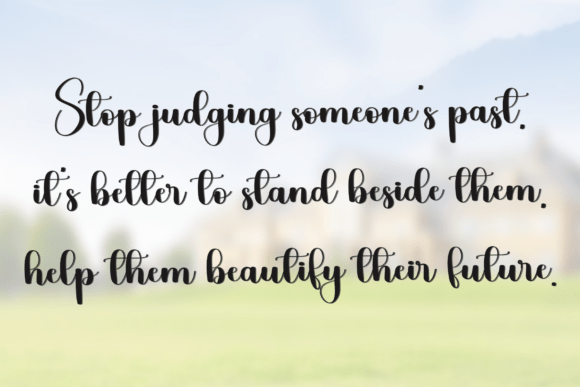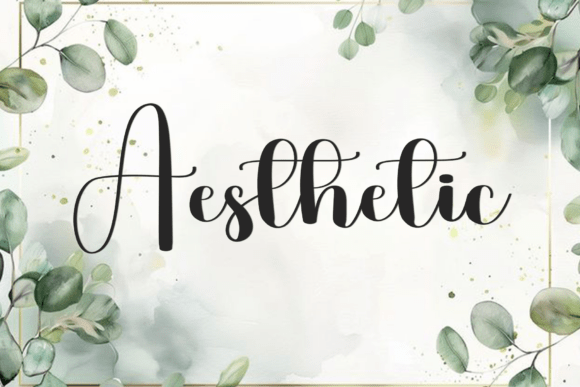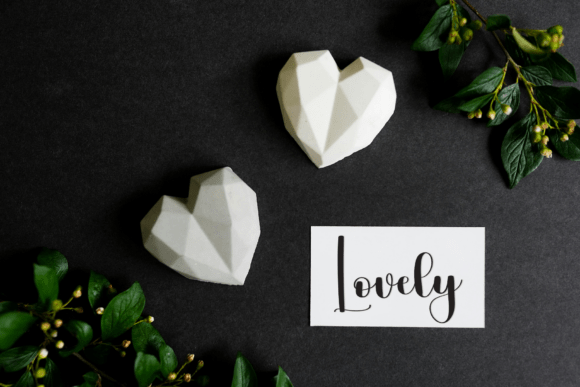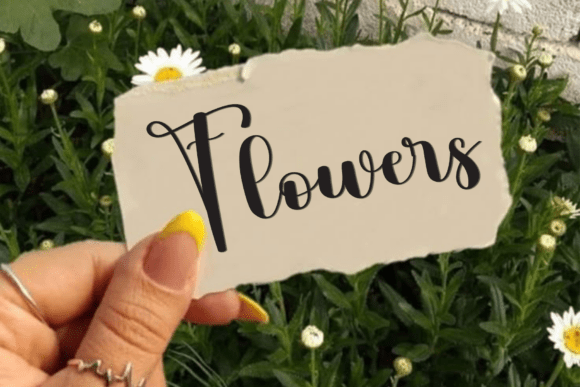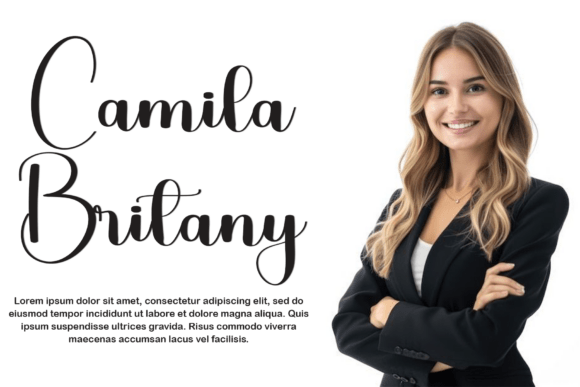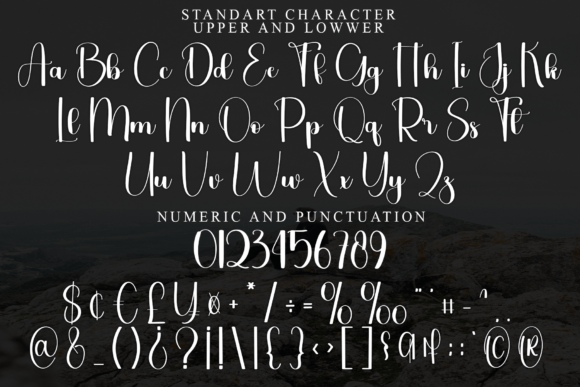
Introduction to Sample Vacation Font
Have you ever found yourself staring at a blank page, desperately searching for the perfect font to bring your creative project to life? That’s where the magic happens, and for many designers, it’s a moment of pure excitement. In this article, we’ll delve into the world of Sample Vacation Font, a stunning and versatile design resource that’s sure to elevate your work to the next level.
Key Features of Sample Vacation Font
- High-quality design resource ideal for creative projects, including travel brochures, posters, and websites.
- Transparent background and crisp, clear typography ensure a professional look in any design context.
- Perfect for use in travel-themed designs, including advertisements, social media graphics, and print materials.
- Unique characteristics include a fun, laid-back feel and a wide range of font styles, making it perfect for creative projects.
Honest Review: Sample Vacation Font
- High-quality glyphs and characters, perfect for crafting unique and eye-catching typography.
- A transparent background makes it easy to integrate into various design projects, from graphics to web design.
- The font family is relatively small, with limited font weights and styles.
- The font may not be suitable for body text, as it can be quite ornate and distracting.
Sample Vacation Font
The Sample Vacation Font is a high-quality design resource ideal for creative projects that require a unique and eye-catching touch. With its transparent background, this font can be easily integrated into various design platforms.
Tips for Getting the Most Out of the Sample Vacation Font
To maximize the use of the Sample Vacation Font, consider the following tips:
- Use the font in combination with other design elements to create a cohesive look.
- Experiment with different font sizes and styles to add visual interest.
- Use the font in creative ways, such as using it as a background or overlay.
Common Use Cases for the Sample Vacation Font
The Sample Vacation Font is ideal for a variety of creative projects, including:
Alternatives to Sample Vacation Font
Pacifico is a beautiful, elegant script font ideal for creative projects, such as wedding invitations, greeting cards, and design resources. Its high-quality design and transparent background make it perfect for adding a touch of sophistication to your work. When to use: Formal events, luxury brands, and high-end design projects. Compared to Sample Vacation Font, Pacifico has a more refined and luxurious feel.
Great Vibes is a modern, cursive font that’s perfect for design resources, free downloads, and creative projects. Its high-quality design and transparent background make it ideal for adding a touch of elegance to your work. When to use: Fashion brands, beauty products, and lifestyle magazines. Compared to Sample Vacation Font, Great Vibes has a more modern and trendy feel.